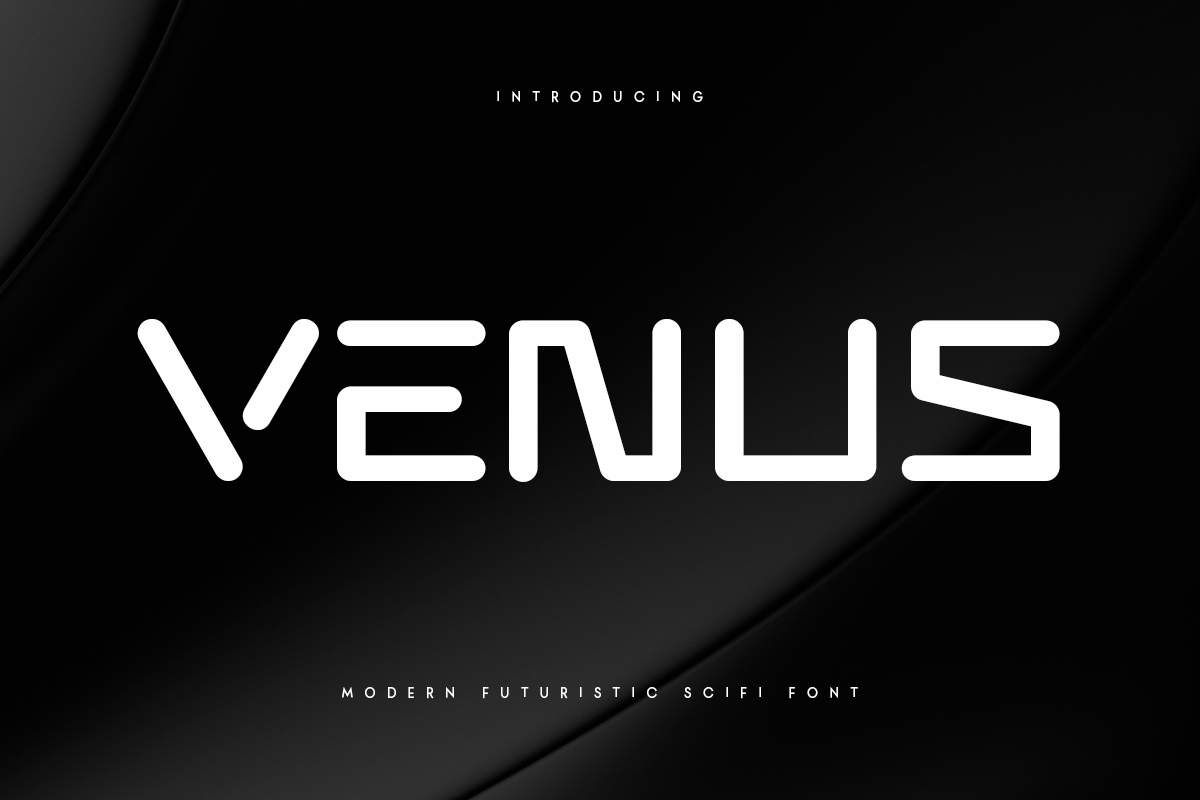
VENUS - Modern Futuristic Scifi Font
Transform your designs with VENUS - the ultimate futuristic sci-fi font for cutting-edge projects. VENUS combines sleek lines and modern aesthetics to deliver a sophisticated look that enhances any technology-themed design. This contemporary typeface brings space-age innovation to your creative work. VENUS Font Features: Futuristic Glyphs: Unique characters that evoke a modern, tech-forward vibe Sci-fi Accents: Distinctive elements inspired by space and futuristic themes Smooth Curves: Sleek and...